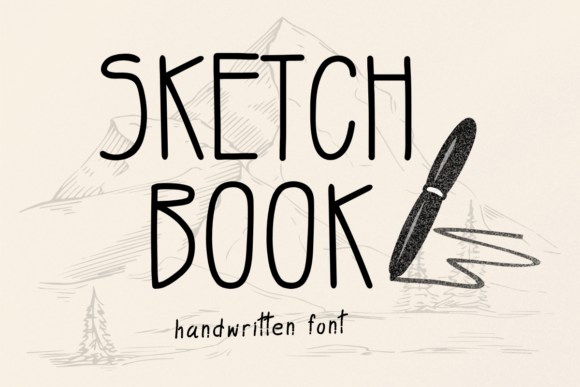
Unleash the Creative Spirit of Christmas with Sketch Book Font: A Handwritten Journey of Festive Charm
In this season of love, laughter, and cheer, let your creativity take center stage with Sketch Book Font—a handwritten font that captures the essence of Yuletide magic. Its endearing simplicity and charming touch will transform your holiday projects into true works of art.
Sketch Book Font is a versatile font that dances gracefully across a spectrum of designs, from whimsical works for kids to heartfelt expressions of teachers and the warmth of greeting cards. Let your imagination soar as you bring life to your creations—from invitations to posters and everything in between.
More than just a font, Sketch Book Font is an invitation to a creative haven, a place where your imagination can flourish and your designs become the centerpiece of your holiday cheer.
Dive into the enchanting world of Sketch Book Font and elevate your festive spirit with its timeless charm.